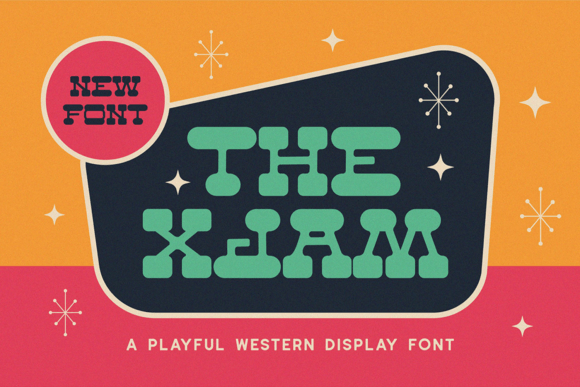
Xjam Font
Introducing Xjam Font – the perfect font for your modern CV!
If you're looking to make a lasting impression with your CV, Xjam Font is the perfect choice. This cool, retro-style display font will add a touch of funk and groove to your designs, making sure you stand out from the crowd.
**Unique and Stylish**
Xjam Font is one-of-a-kind, with its unique retro style that will make your CV stand out. Whether you're going for a classic or modern look, Xjam Font will add a touch of personality to your designs.
**Versatile and Adaptable**
Xjam Font is incredibly versatile, making it perfect for a wide range of CV designs. Whether you're using it for a creative resume, a professional portfolio, or a personal website, Xjam Font will adapt to your needs and help you create a stunning CV that reflects your unique style.
**Easy to Use**
**Make a Statement with Xjam Font**
Don't settle for a boring, ordinary CV. With Xjam Font, you can create a CV that is as unique and stylish as you are. Whether you're just starting out or you're a seasoned professional, Xjam Font will help you make a statement and land your dream job.